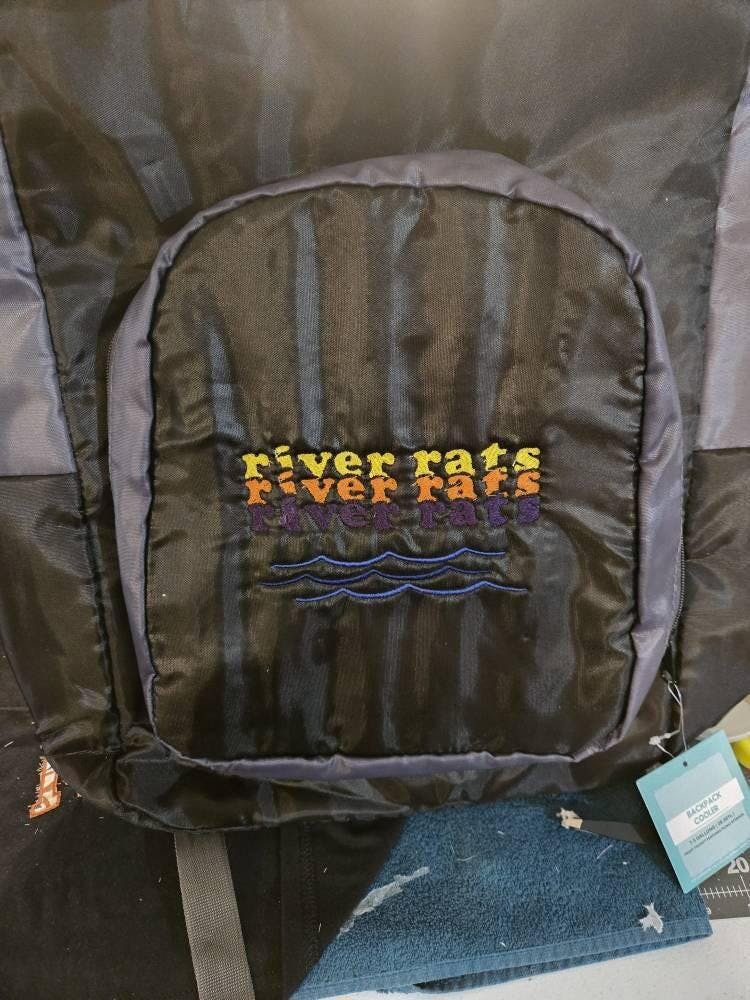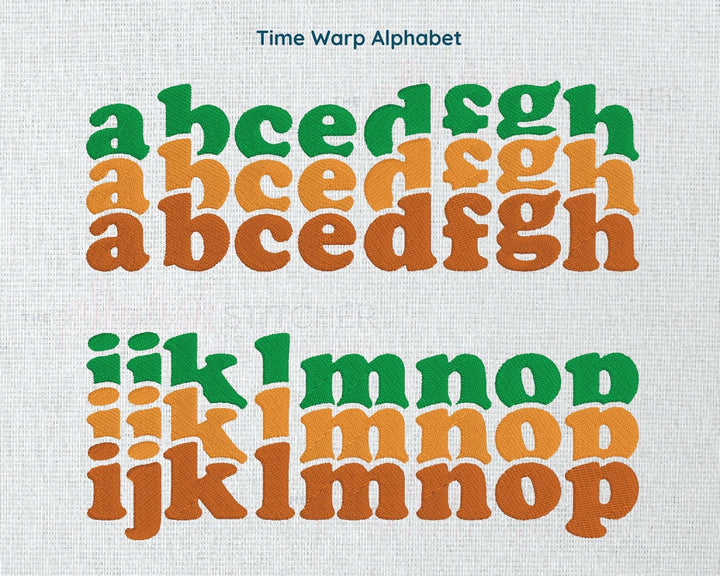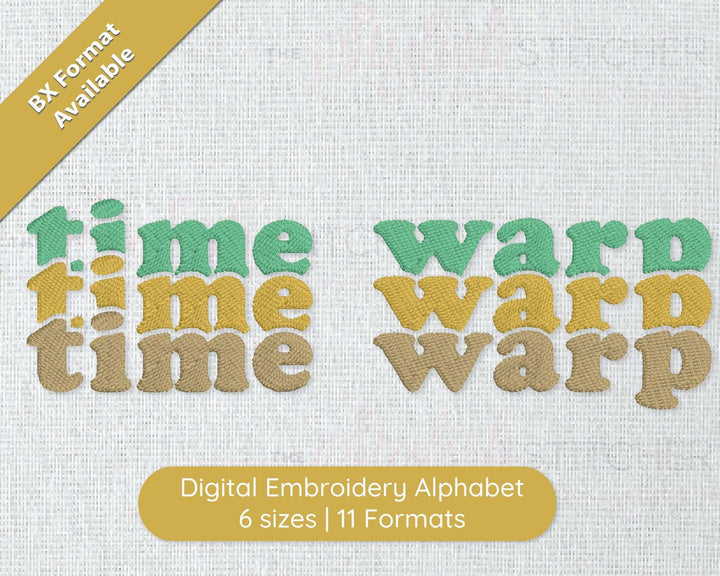
Photograph of Time Warp embroidery font
Photograph of Time Warp embroidery font alphabet
Time Warp Digital Embroidery Font
About Time Warp Machine Digital Embroidery Font
Transport yourself back in time with our Time Warp embroidery font. This unique and fun font takes retro inspiration to a whole new level by stacking each letter in triplicate vertically. But that's not all – you have the power to assign different colors to each letter in the stack, allowing your creativity to run wild. Get ready to stitch up some groovy nostalgia and make your embroidery projects truly stand out with Time Warp!
Stitch Type: Fill Stitch
The size of each font is the height of the stack of letters - so a 1.5" font is top to bottom of all three letters.